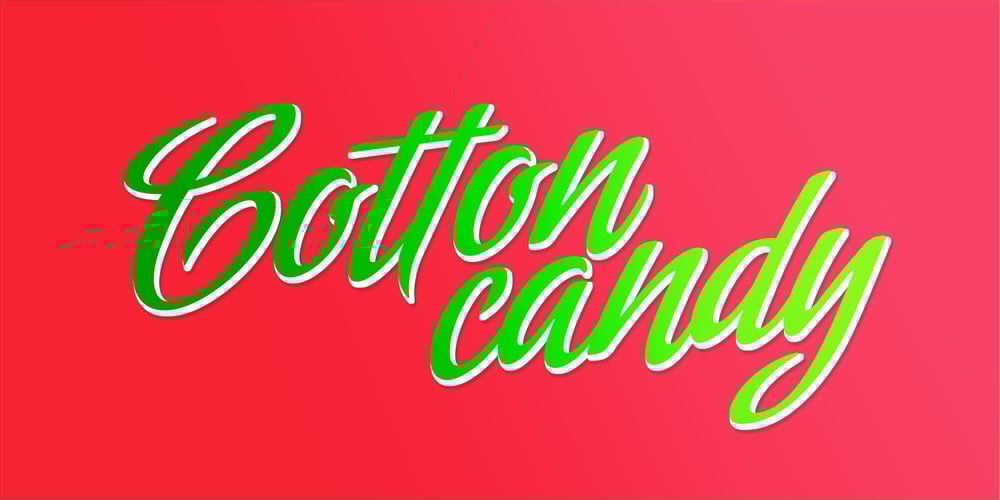
Amorinda OT Font Family was designed by Alejandro Paul, Angel Koziupa and published by Sudtipos. Amorinda OT contains 1 styles and family package options. Amorinda is a connected script that manages to be wild and disciplined at the same time. It can scream wildly within a design or smoothly blend in to make it more human. With its versatile character and a complete set of alternates, Amorinda is the perfect display face for everything from product branding to signage. This 2007 version of Amorinda is now available in OpenType format to expand possibilities of use with lots of alternates when used with OpenType-aware applications such as Adobe Creative Suite.